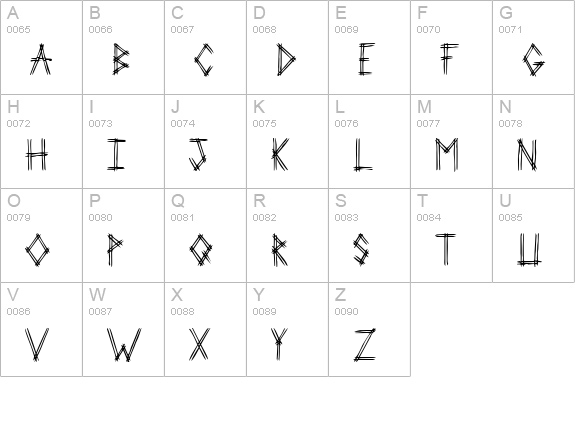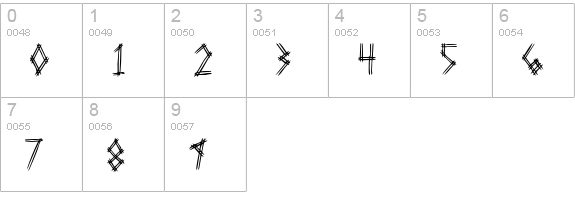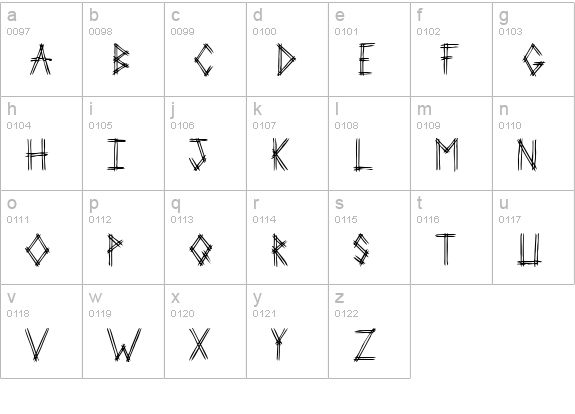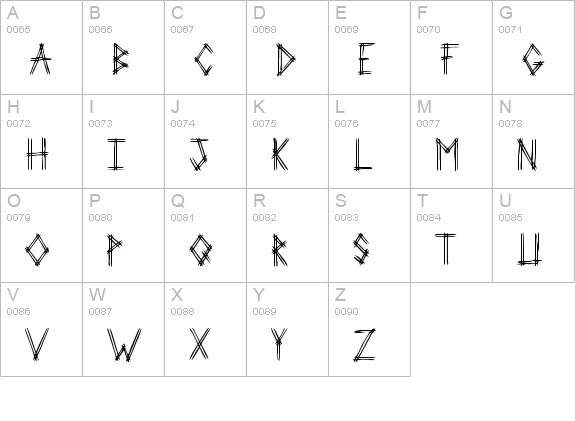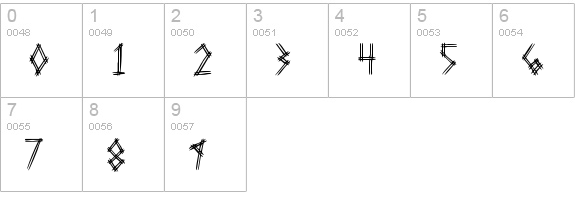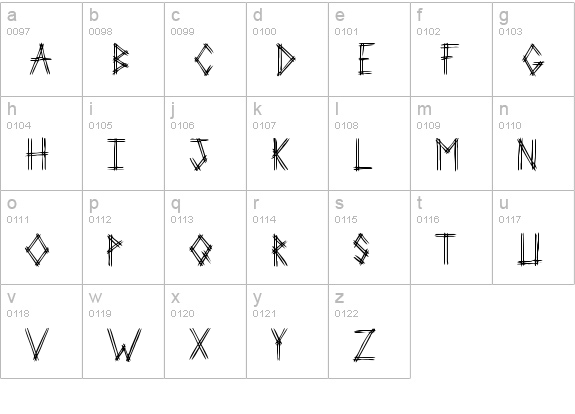
The 2 Prong Tree font is a unique and artistic typeface that exudes a sense of nature and creativity. With its unconventional design featuring prong-like elements, this font adds a touch of originality to any project it is used in. The 2 Prong Tree font is perfect for creating eye-catching headlines, logos, and branding materials that stand out from the crowd. Best of all, the 2 Prong Tree font is completely free to download at FontsMarket.com. This means you can easily add this striking font to your collection without any cost. Whether you're a designer looking to expand your font library or a casual user in need of a fresh and distinctive typeface, the 2 Prong Tree font is a fantastic choice that won't break the bank. Download it today and let your creativity flourish with this captivating and freely available font.